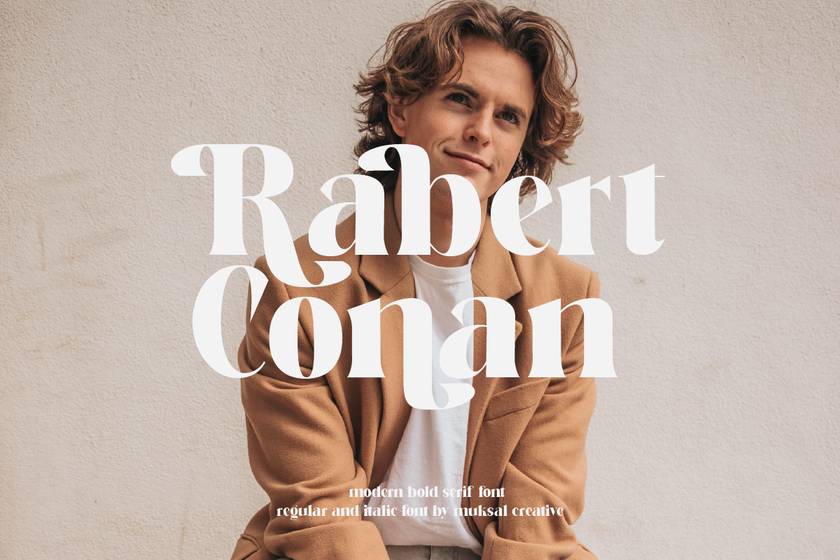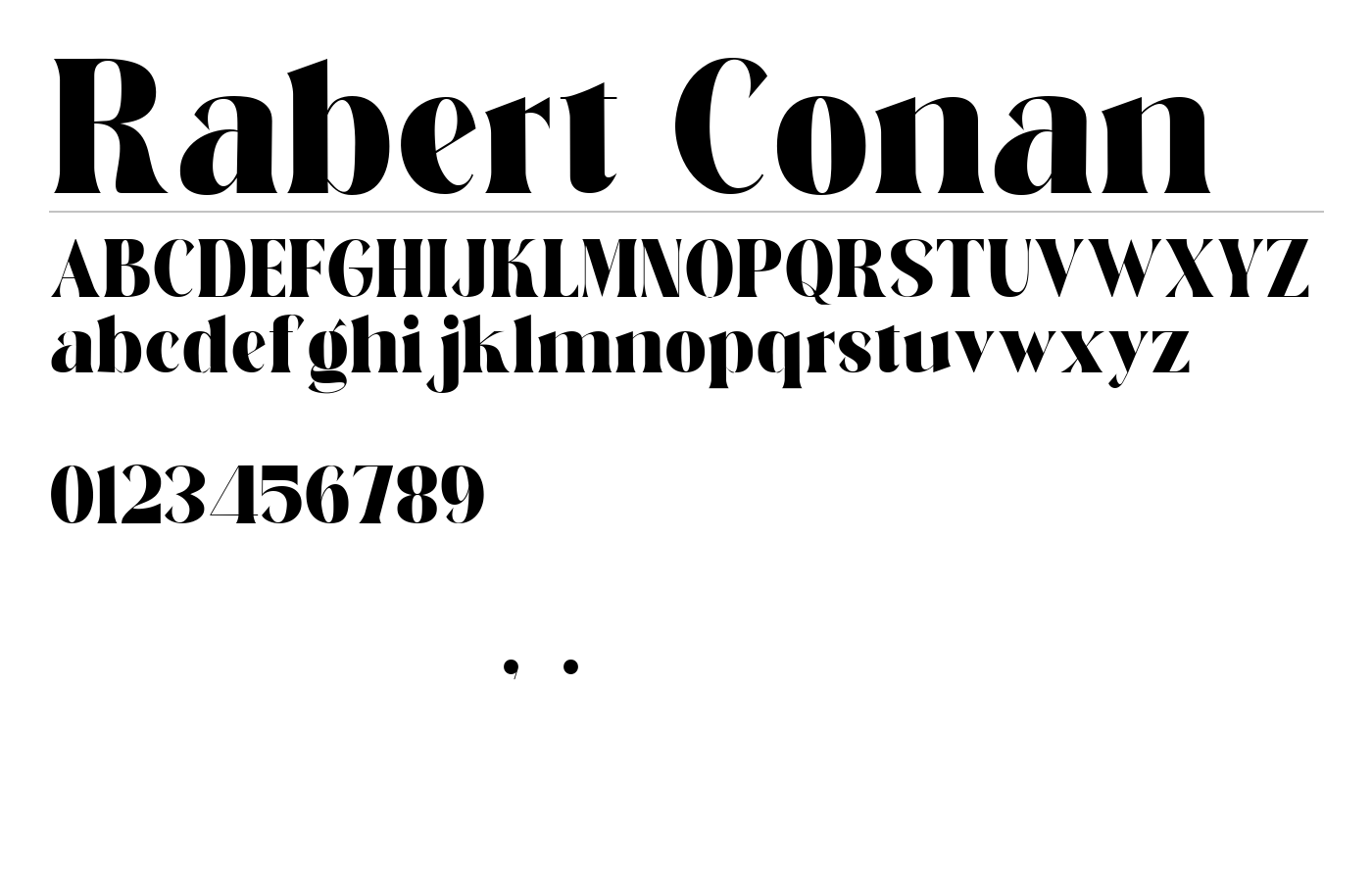
Rabert Conan is a bold, high-contrast serif font with a dramatic and elegant style, featuring sharp, angular serifs and distinctive letterforms that evoke a strong, classic yet modern presence. Its condensed width and refined details make it an excellent choice for fashion branding, luxury editorial headlines, and impactful logos where sophistication and confidence are key. This font combines vintage charm with contemporary flair, making it perfect for designs that require a striking and stylish statement.
Rabert Conan Font
About Rabert Conan Font
| Font family | Rabert Conan Font |
| Designer | Muksal Creative |